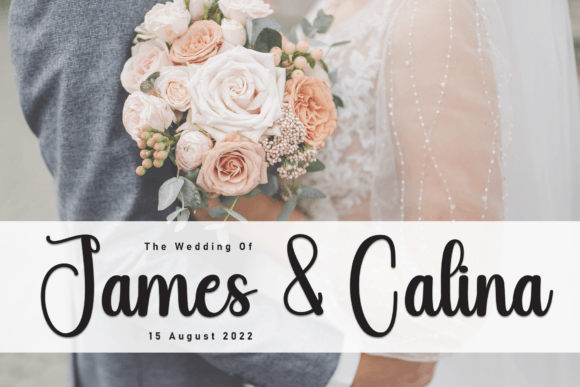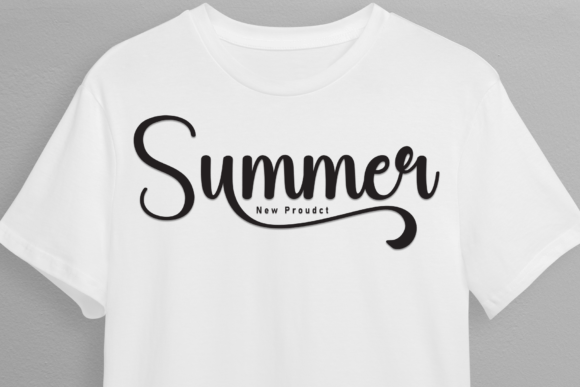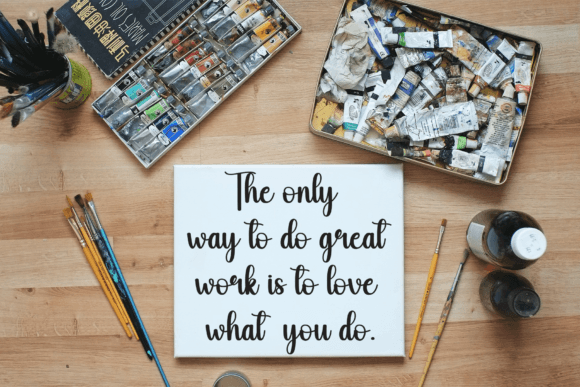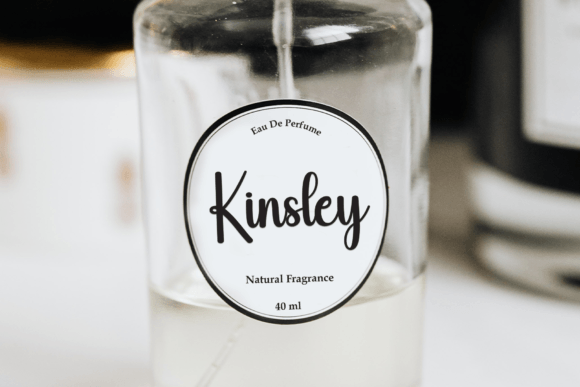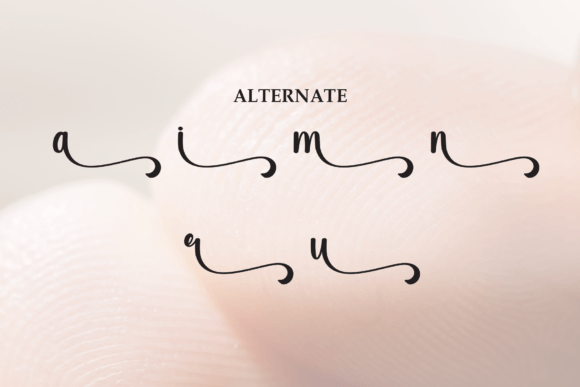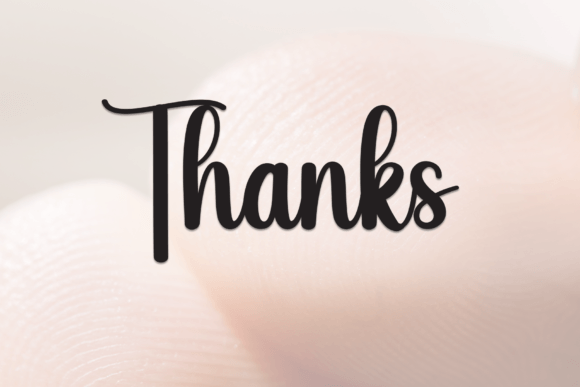
Introducing Handline Font: The Sweet and Friendly Handwritten Display Font
Are you looking for a font that can add a touch of warmth and personality to your designs? Look no further than Handline Font, a sweet and friendly handwritten display font that’s perfect for creating eye-catching and engaging content. In this article, we’ll take a closer look at Handline Font, its features, and how you can use it to elevate your designs.
What is Handline Font?
Handline Font is a beautiful handwritten display font that’s designed to bring a touch of fun and playfulness to your designs. With its cute and friendly vibe, this font is ideal for writing wedding invitations, cards, or any other design that might need a personal touch. Whether you’re a designer, crafter, or DIY enthusiast, Handline Font is a versatile and easy-to-use font that can help you create stunning designs.
Key Features of Handline Font
• Cute and Friendly Design: Handline Font features a unique and charming design that’s perfect for creating eye-catching headings and titles.
• Handwritten Style: This font boasts a beautiful handwritten style that’s perfect for adding a personal touch to your designs.
• Display Font: Handline Font is a display font, making it perfect for use in headings, titles, and other prominent design elements.
• Easy to Read: Despite its playful design, Handline Font is easy to read, making it perfect for use in body text and other design elements.
Use Cases for Handline Font
Handline Font is a versatile font that can be used in a variety of design projects, including:
• Wedding Invitations: Add a touch of romance and whimsy to your wedding invitations with Handline Font.
• Greeting Cards: Create personalized and engaging greeting cards for special occasions like birthdays, holidays, and more.
• Social Media Graphics: Use Handline Font to create eye-catching social media graphics that showcase your brand’s personality.
• DIY Crafts: Add a personal touch to your DIY crafts, such as scrapbooking, journaling, and more.
Tips for Using Handline Font
Here are some tips for getting the most out of Handline Font:
• Use it as a Headline Font: Handline Font is perfect for use as a headline font, so be sure to use it to grab attention and draw the eye.
• Pair it with Other Fonts: Experiment with pairing Handline Font with other fonts to create a unique and visually appealing design.
• Experiment with Colors: Handline Font looks great in a variety of colors, so don’t be afraid to experiment and find the perfect hue for your design.